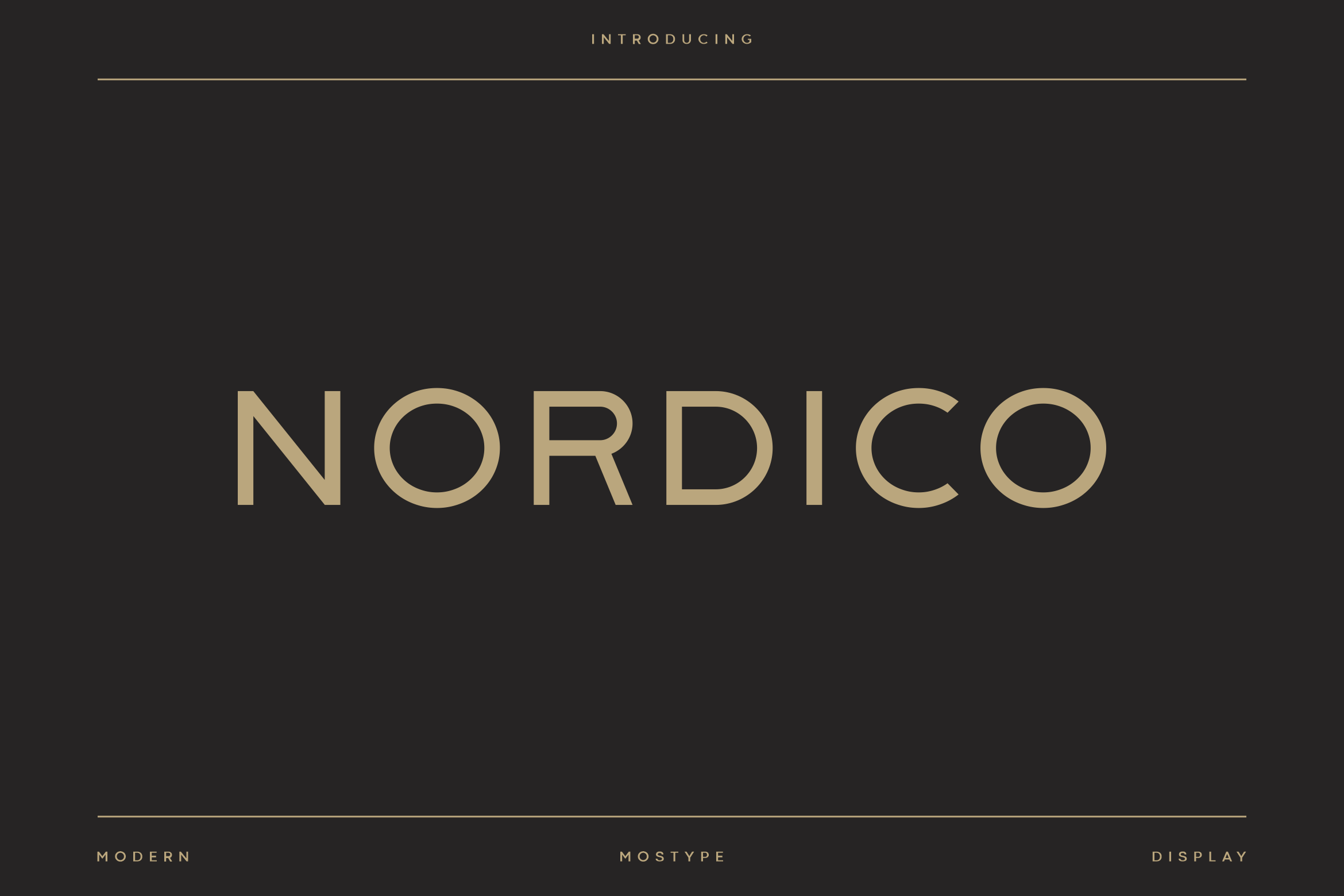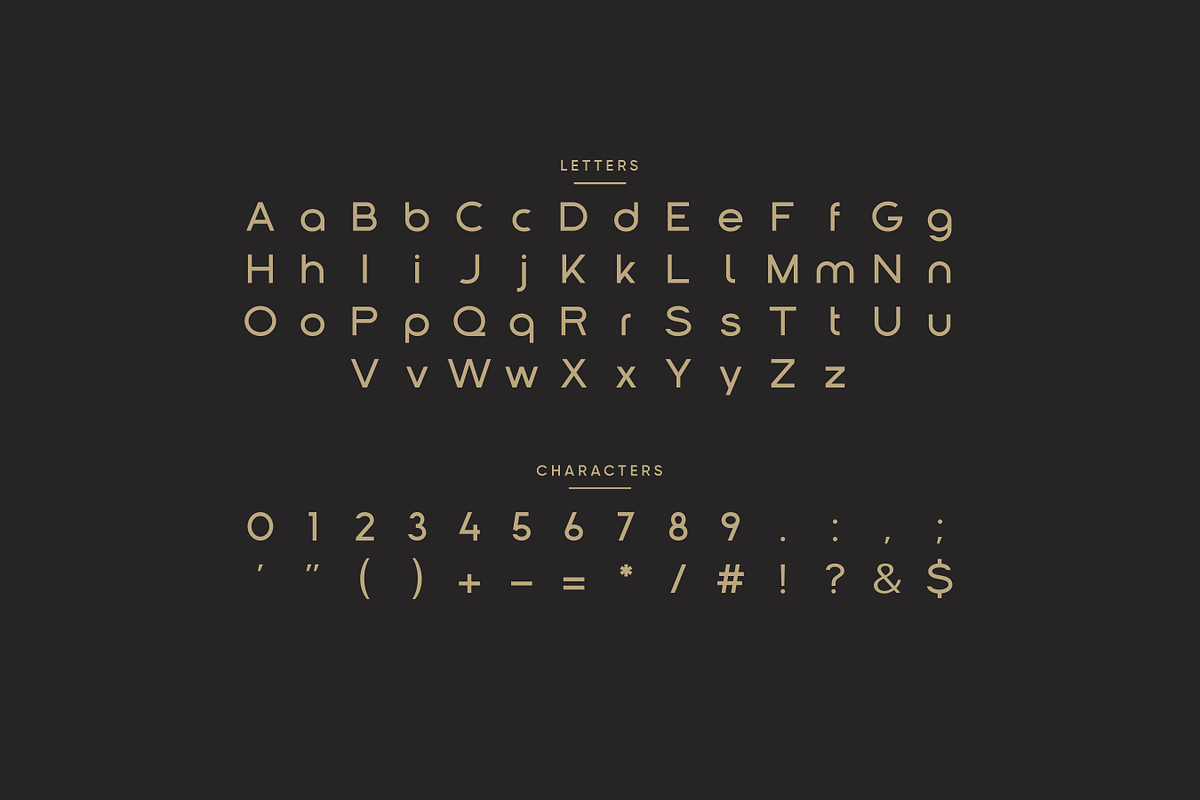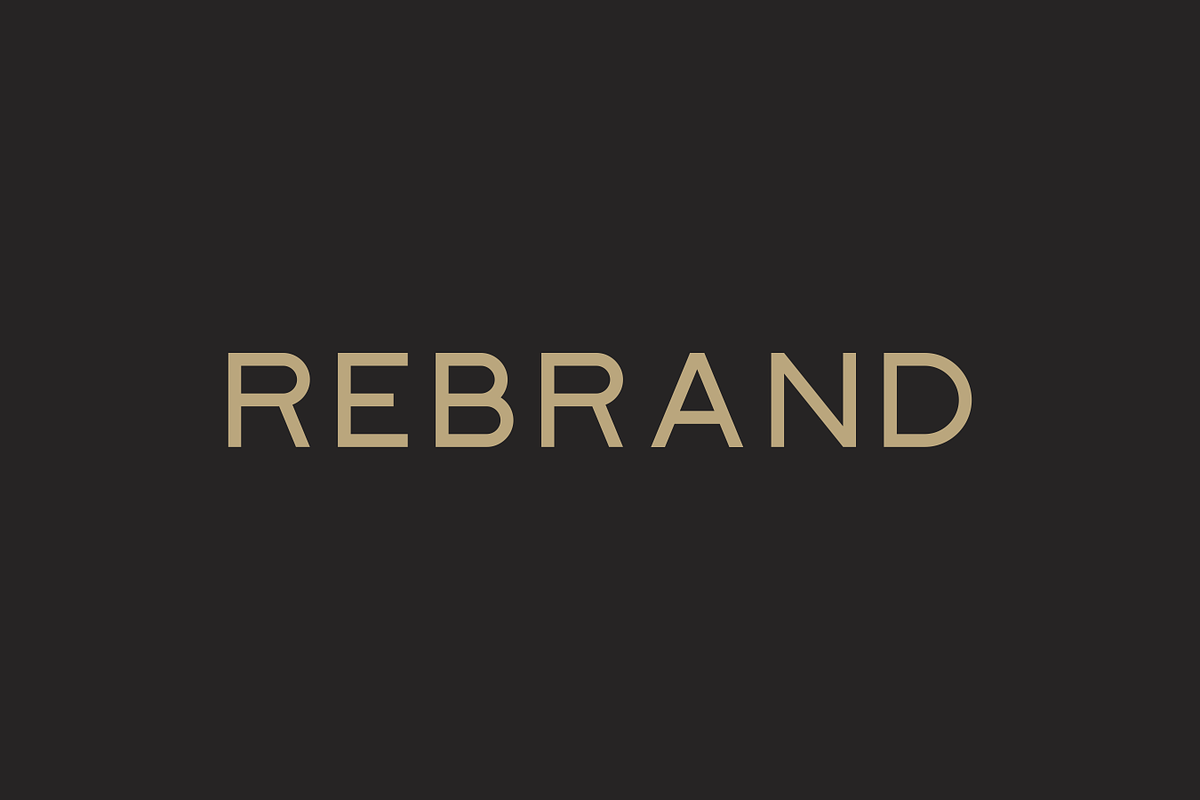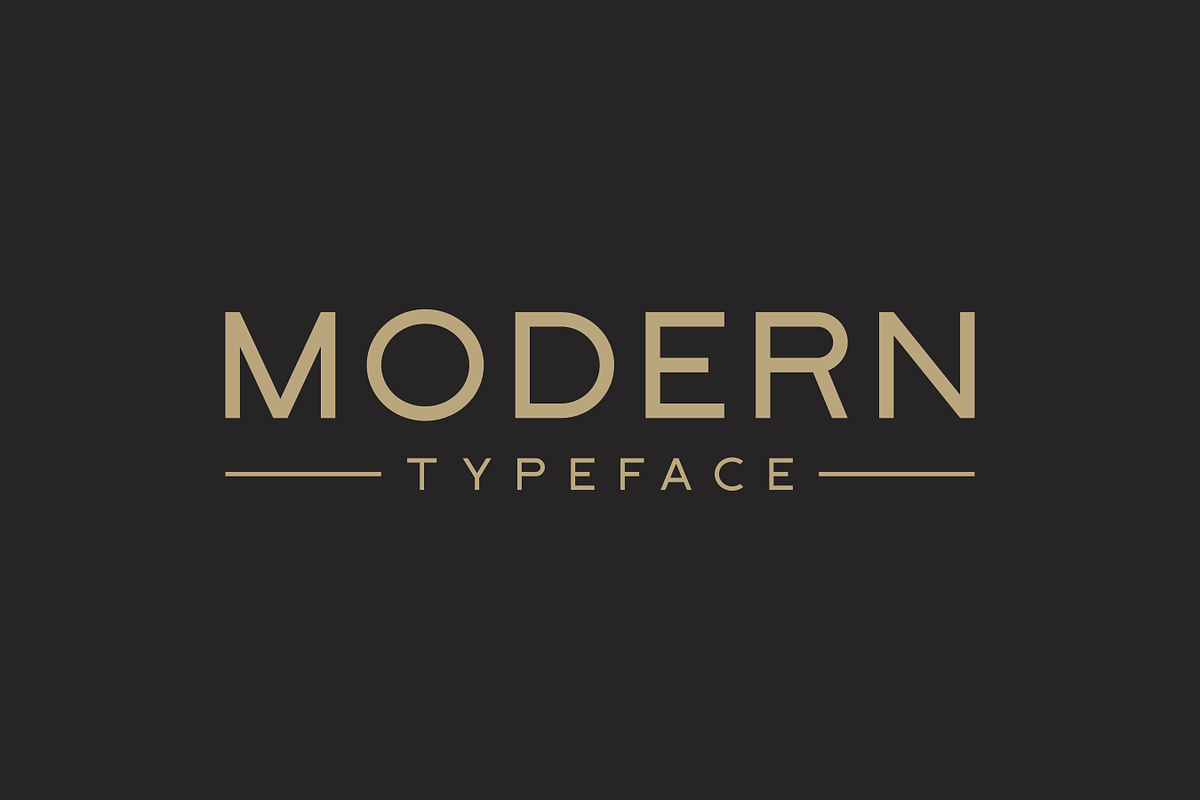
Nordico - Modern Luxury Typeface
Proudly presenting Nordico this elegant font inspired by current digital title typography trends, this font is unique with a very modern and luxurious style. The beautiful and elegant pieces will be perfect for various types of designs, product packaging logos, fashion and future designs, feel free to use this on futuristic or gaming designs.